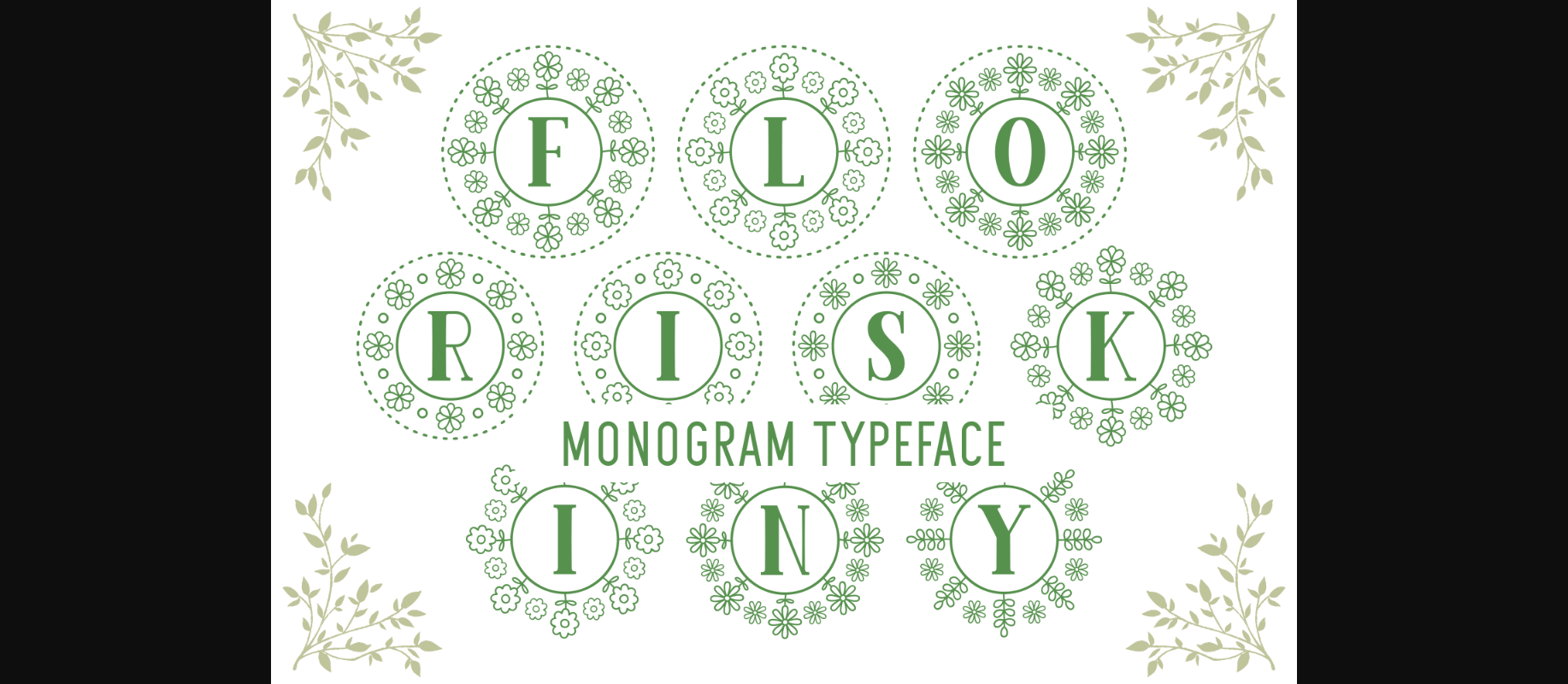
About Floriskiny Font
Floriskiny is a decorative monogram typeface with a floral theme. This creative font is a perfect match for logos, landing pages, wedding designs, greeting cards, branding, magazines, packaging, mugs, wedding invitations, book covers, cards, and so much more!